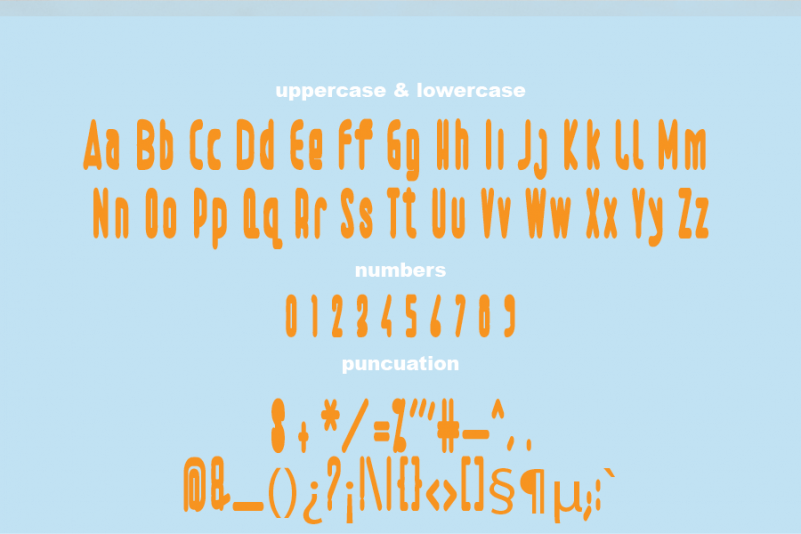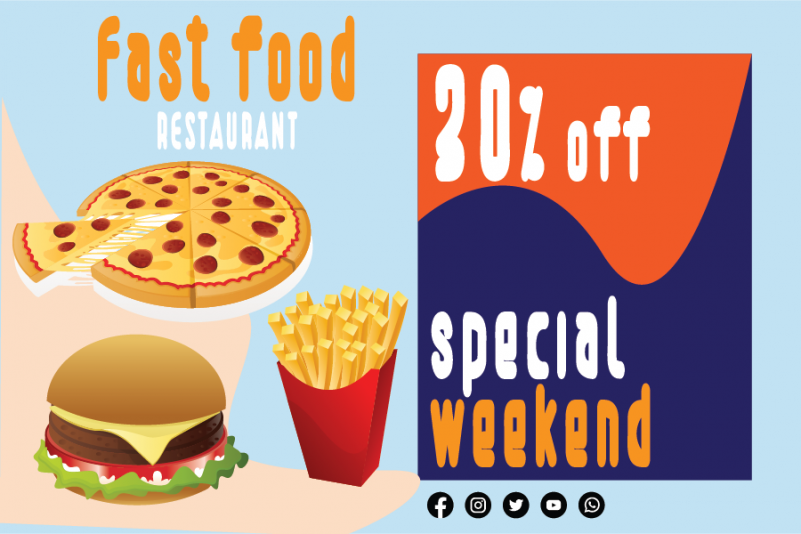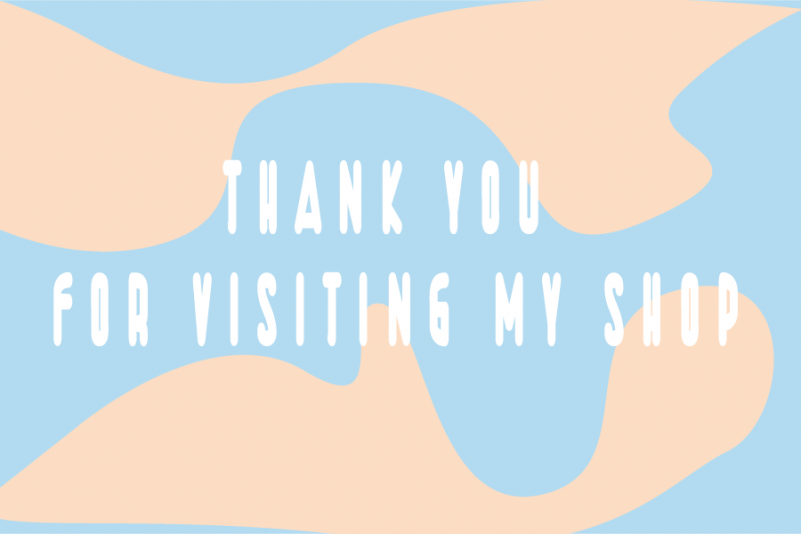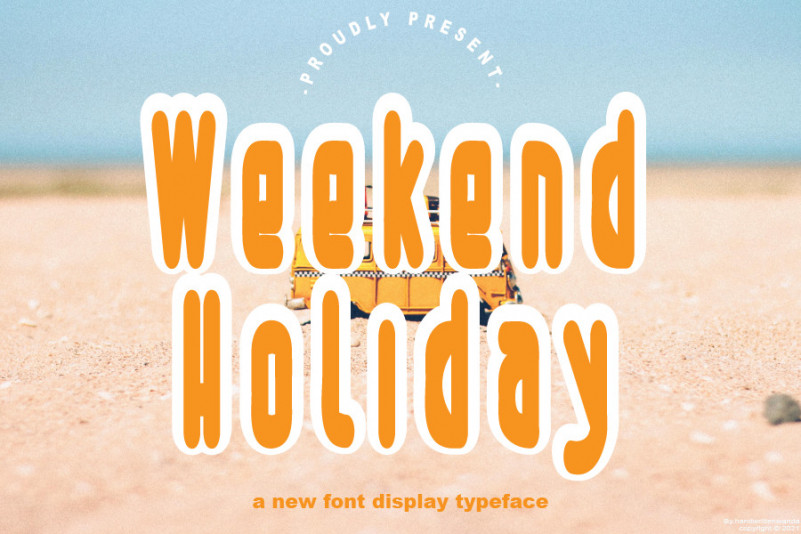
Weekend Holiday Font
Weekend Holiday Display Font
This is a well balanced, refined script font that emanates sophistication and elegance. Its stylish alternates and ligatures make this font the perfect match for any project.
handwrittenwanda